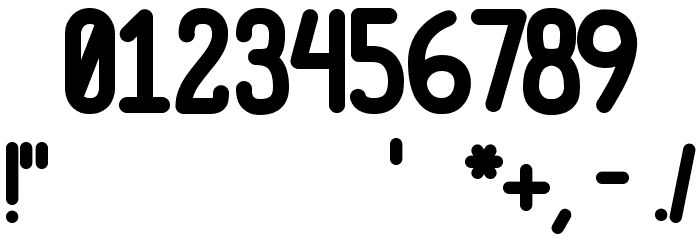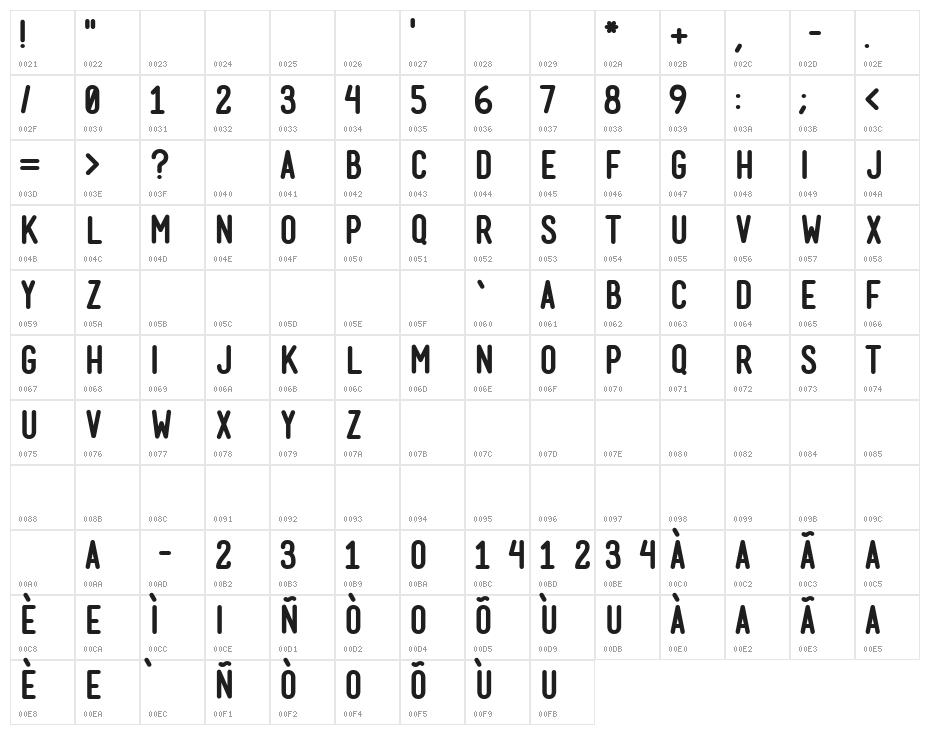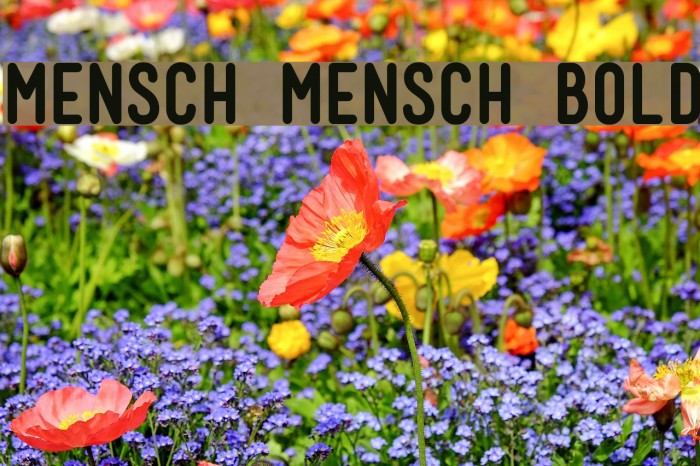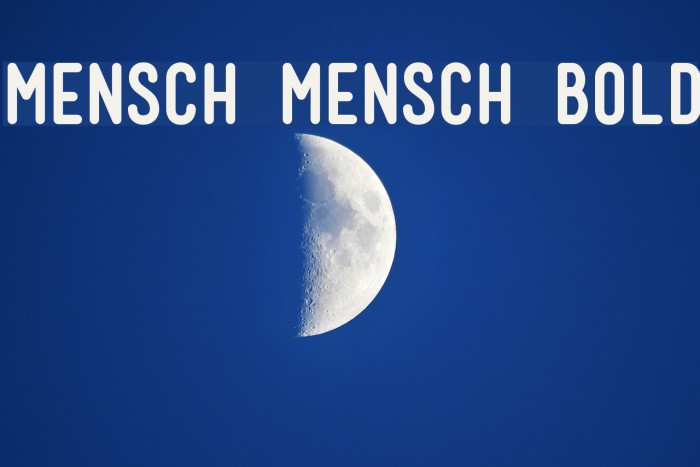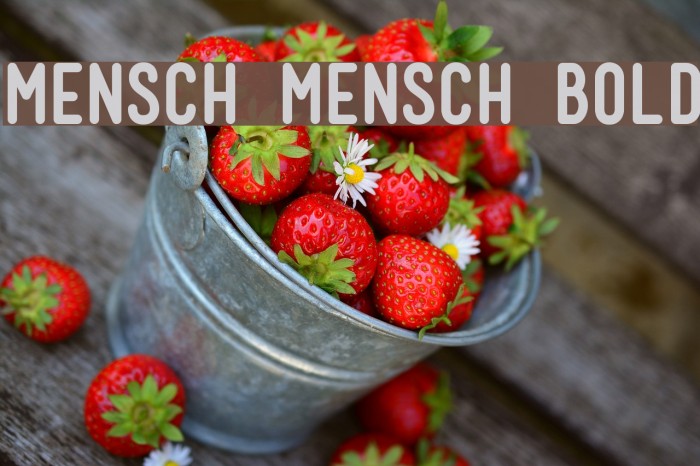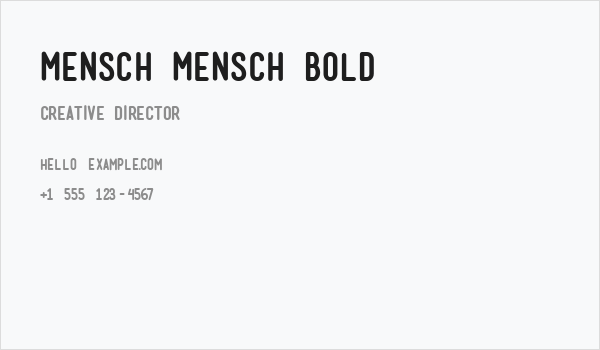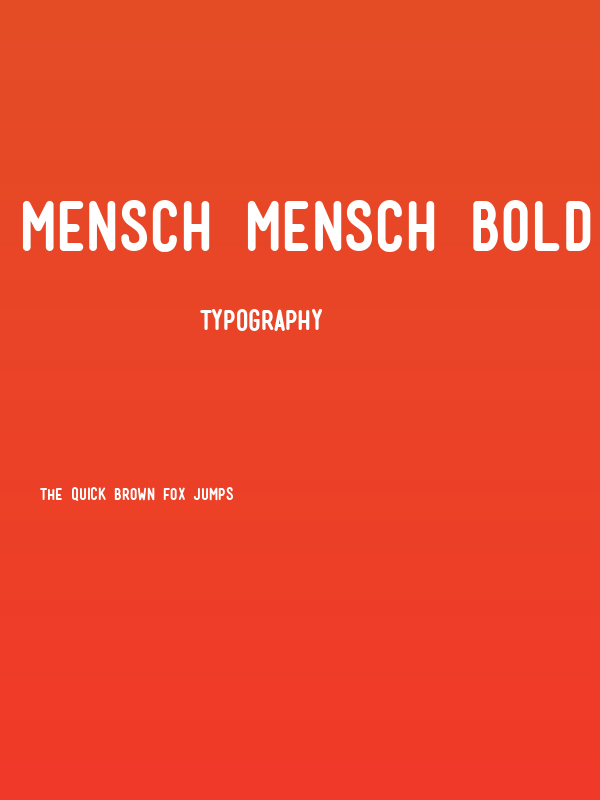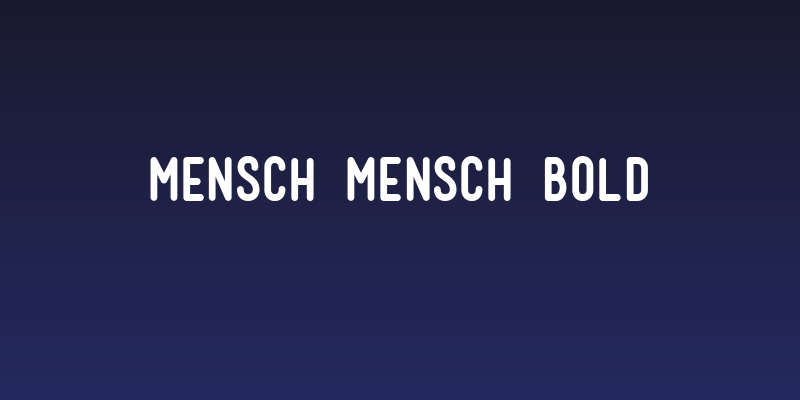
Mensch Mensch Bold Font
Mensch Mensch Bold Description
This font features a bold, rounded sans-serif style with uniform stroke widths, giving it a modern and approachable appearance. The characters are evenly spaced, with a slightly condensed width that maintains readability while maximizing space efficiency. The rounded edges soften the overall look, making it suitable for a variety of applications where a friendly yet professional tone is desired. The numerals and special characters are designed to match the letterforms, ensuring consistency across all text elements.
Use CaseHeadlines, Logos, Signage
Proposed ProjectsIdeal for branding, signage, headlines, and digital interfaces where clarity and friendliness are key.